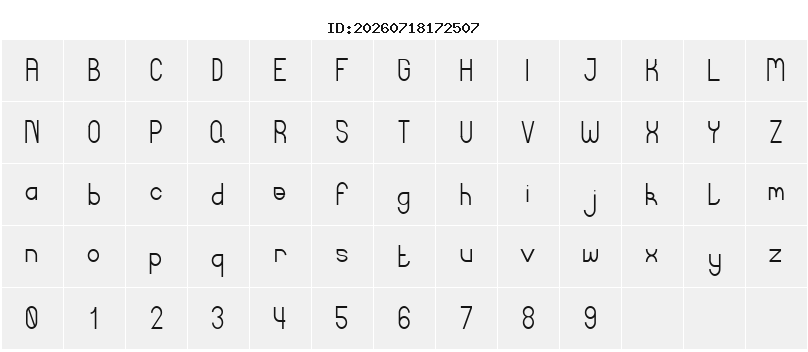
Curvada Preview
• Font Name: Curvada
• Font ID: ConorGreen: Curvada: 2012
• Full Font Name: Curvada
• PostScript Name: Curvada
• Designer: Conor Green
• Manufacturer: Conor Green
About Curvada.ttf
Curvada.ttf is a modern, elegant sans-serif font designed for ultimate readability and visual harmony. Perfect for branding, headlines, web design, and print materials.